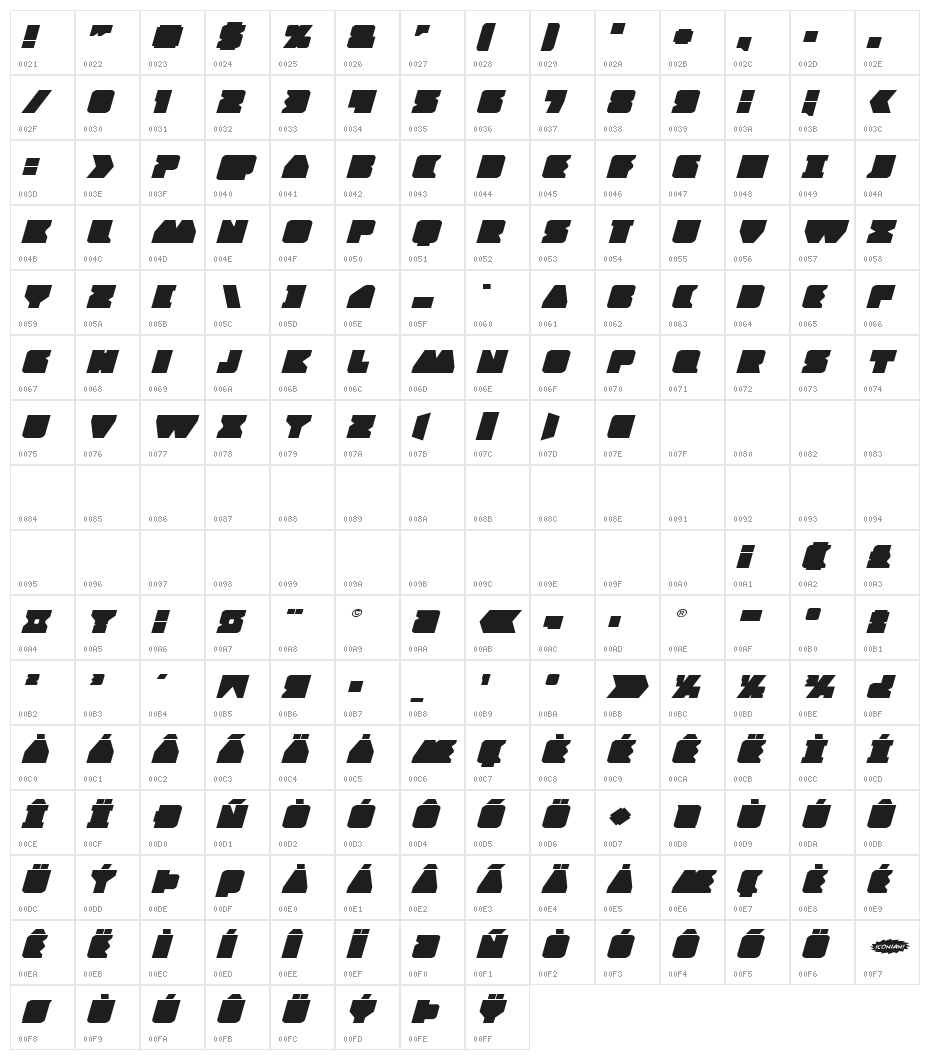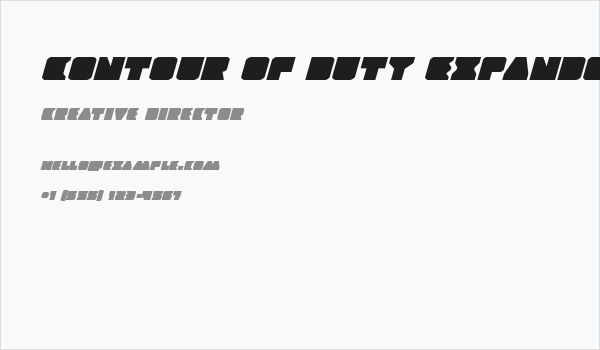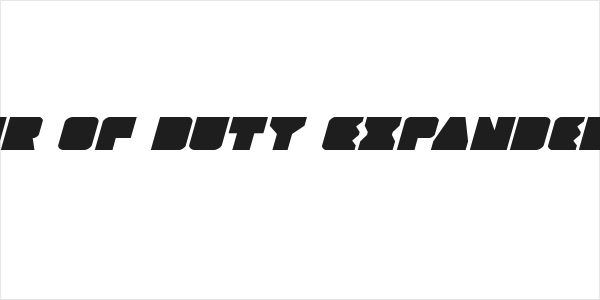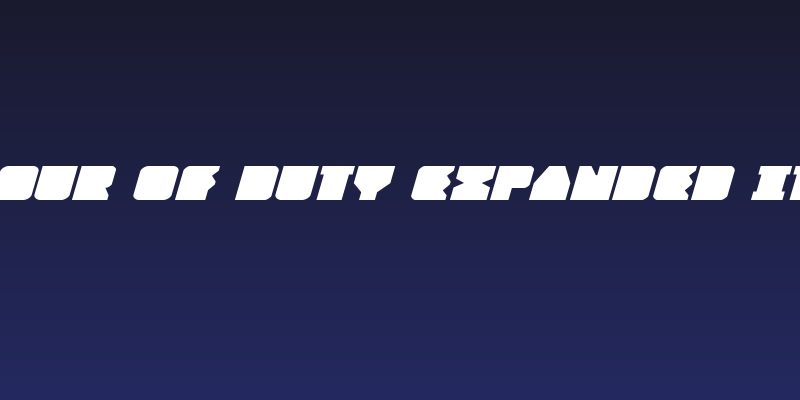
Contour of Duty Expanded Italic Font
Contour of Duty Expanded Italic Description
This font features a bold and dynamic style with an expanded and italicized appearance. The characters are heavily stylized with sharp angles and a strong geometric influence, creating a sense of movement and energy. The uppercase and lowercase letters maintain a consistent width, contributing to a uniform and cohesive look. The numbers and special characters follow the same design principles, ensuring a harmonious overall appearance. This font's boldness and unique style make it suitable for attention-grabbing designs.
| Proposed Projects | Ideal for use in posters, logos, video game titles, and any project requiring a strong, impactful visual presence. |